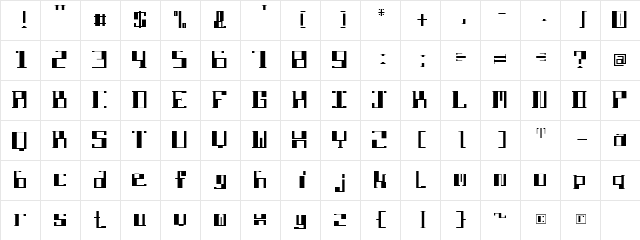
DBE-Lithium DBE-Lithium
Design Context for DBE-Lithium Typeface
DBE-Lithium is a composed and adaptable typeface that performs quietly and consistently across a wide range of design contexts.